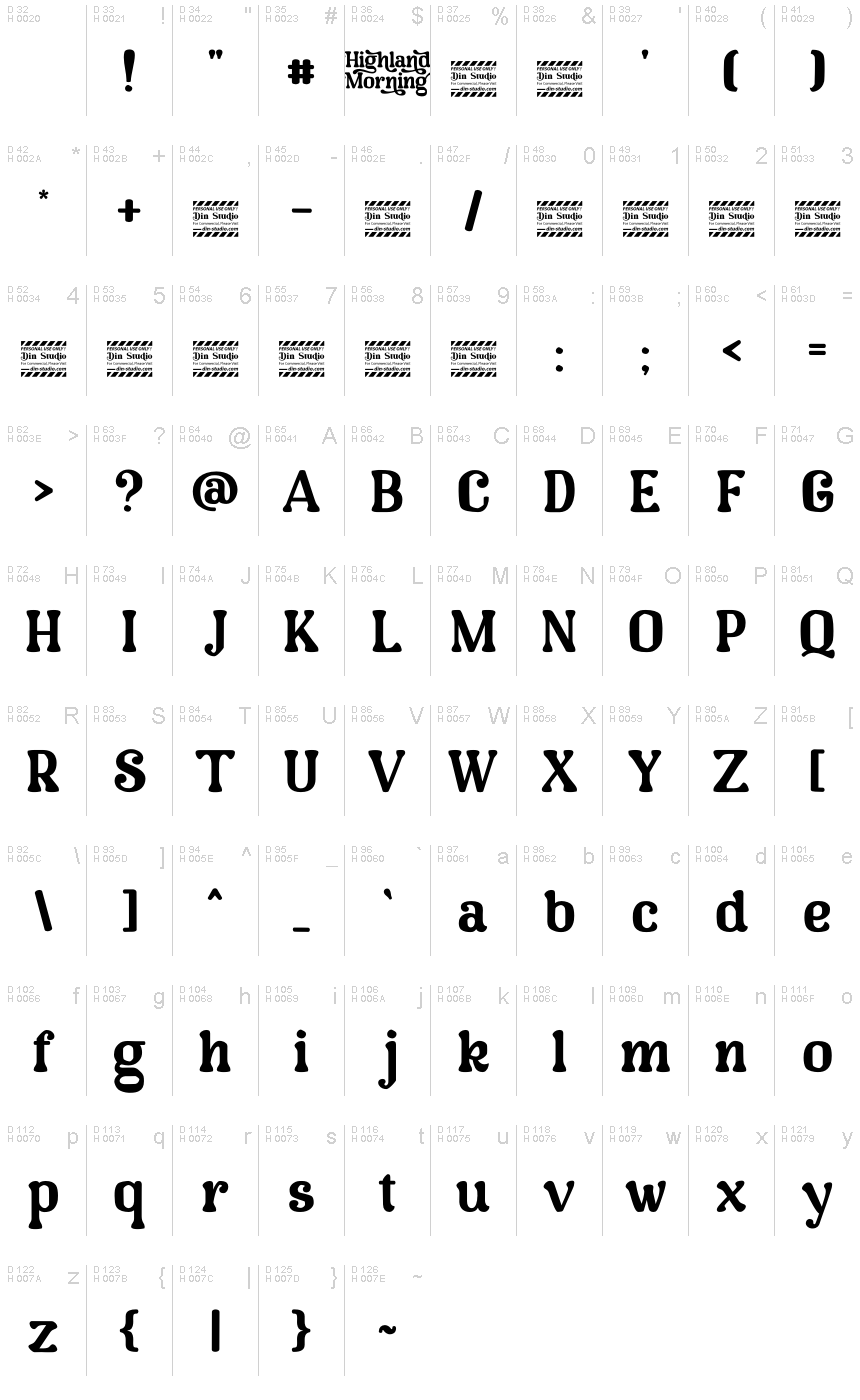
Highland Morning
Highland Morning font by Din Studio
Get ready to elevate your branding with a deluxe, elegant, and stylish serif font. Highland Morning has rounded curves that are inspired by the shape of a crown and ballroom dances which makes it perfect for any projects that require an element of surprise. It is bold and bouncy with rounded edges, as well as has a vintage feel due to its chiseled ends on the main strokes while keeping thin strokes being fully connected with curvy serif end strokes to maintain unique proportion. Features include upper & lower case characters, numerals, punctuation.